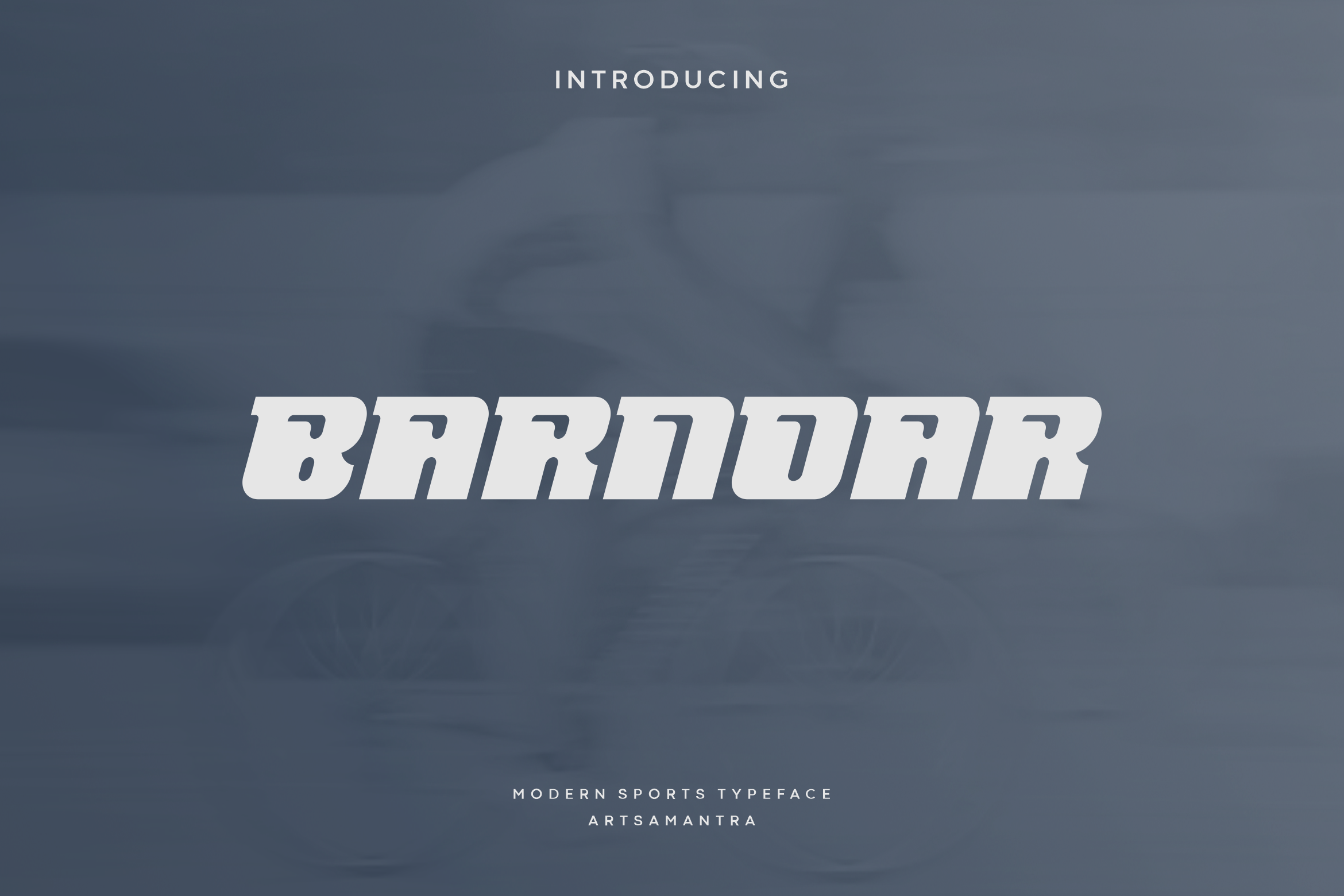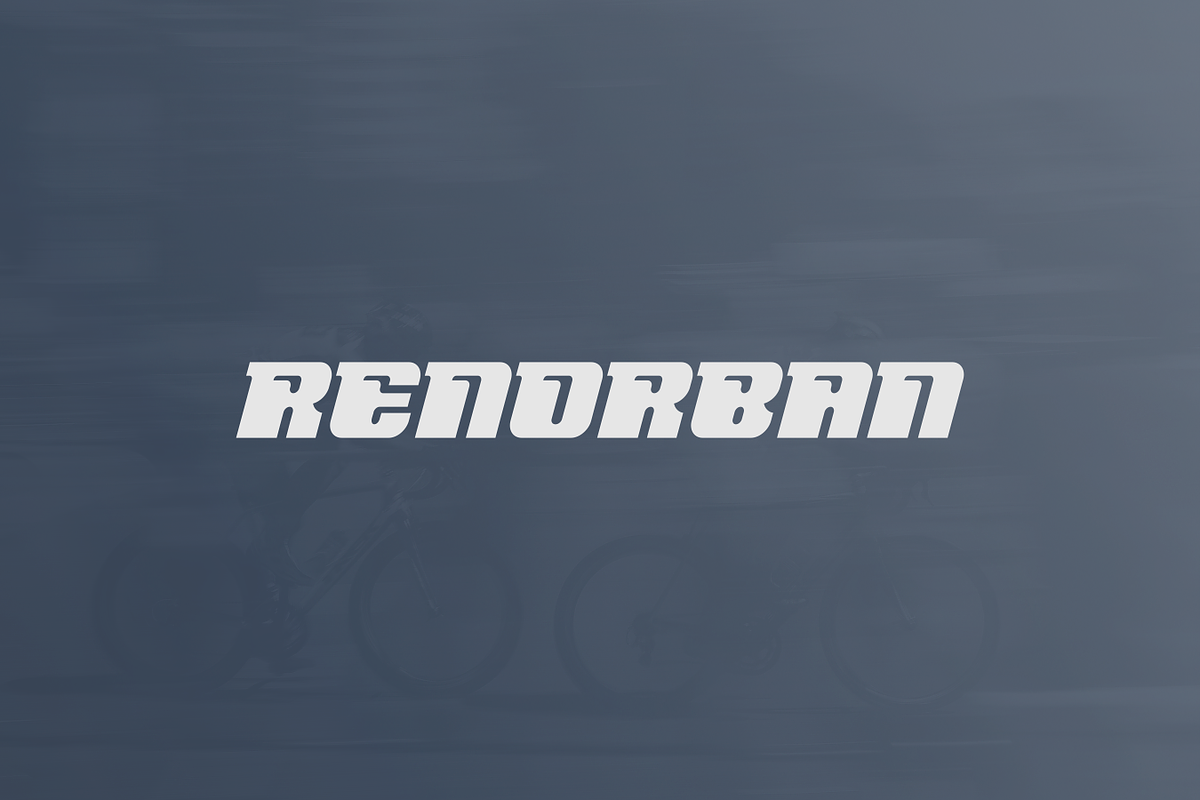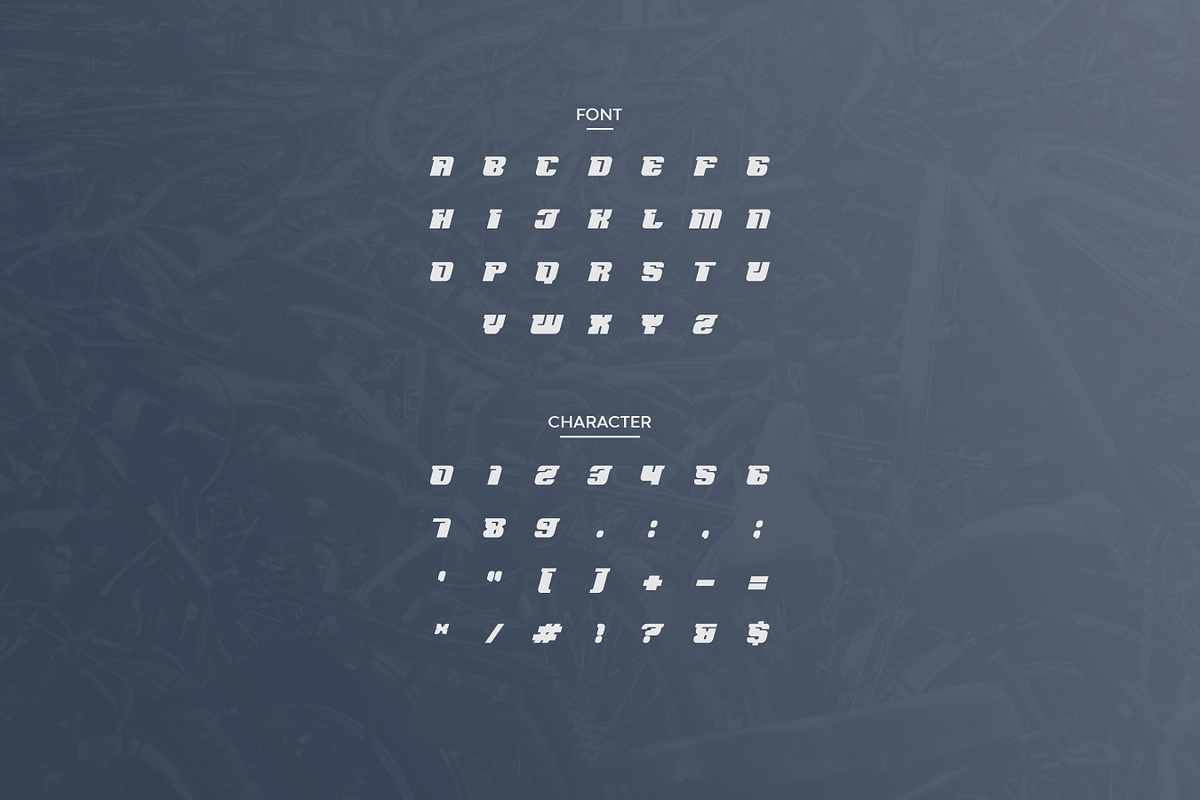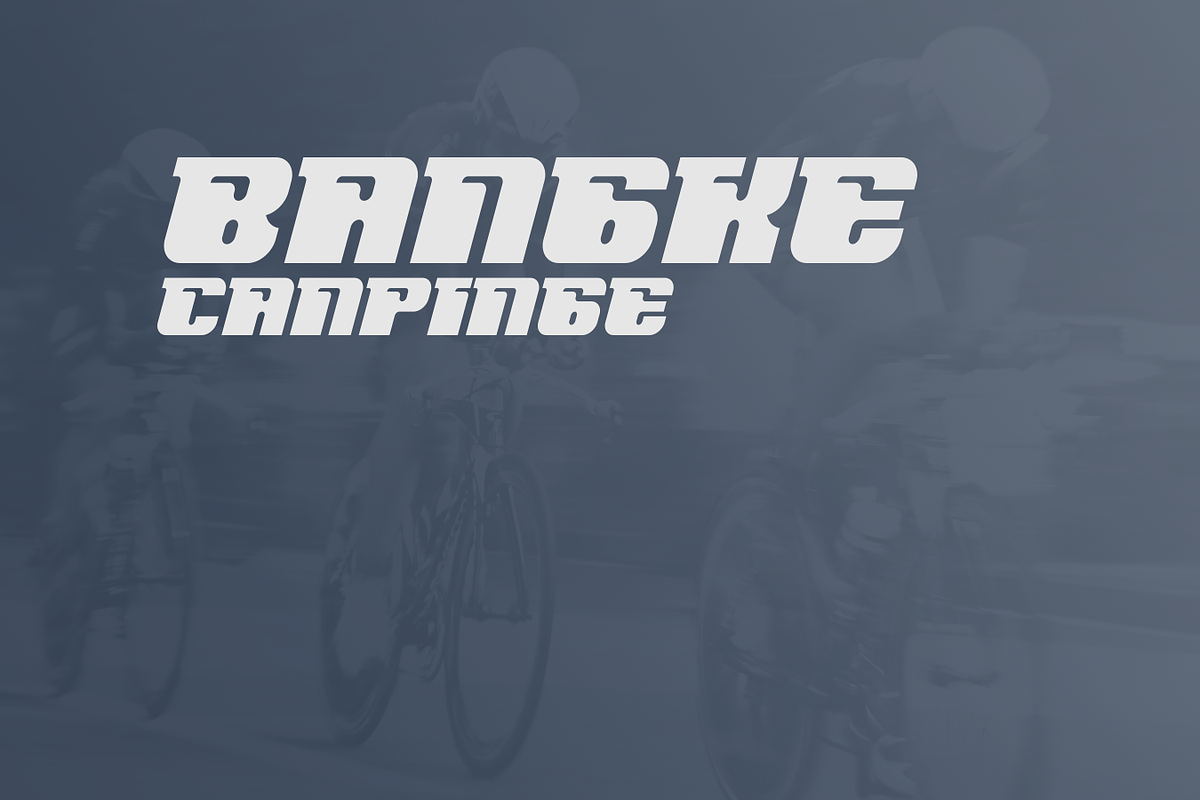
Barnoar - Modern Sport Typeface
Barnoar is a cool sports font with a fresh style, modern cutouts and dynamic tilt for a quick feel. Ideal for fast auto racing sports, titles, logo, poster, headline, magazine, automotive games, monograms or other modern dynamic designs. The Barnoar have a unique at every angle, the cut creates an effect of strength and speed. Designed as a fast and dynamic font, but with a slightly different font design, check it out and get it soon for a design that stands out.